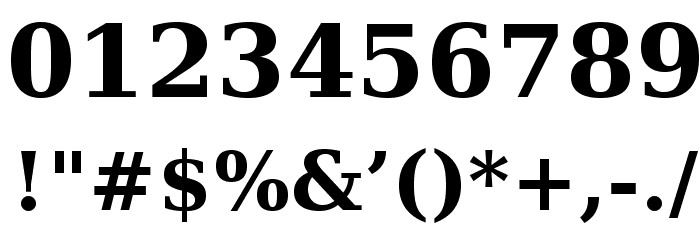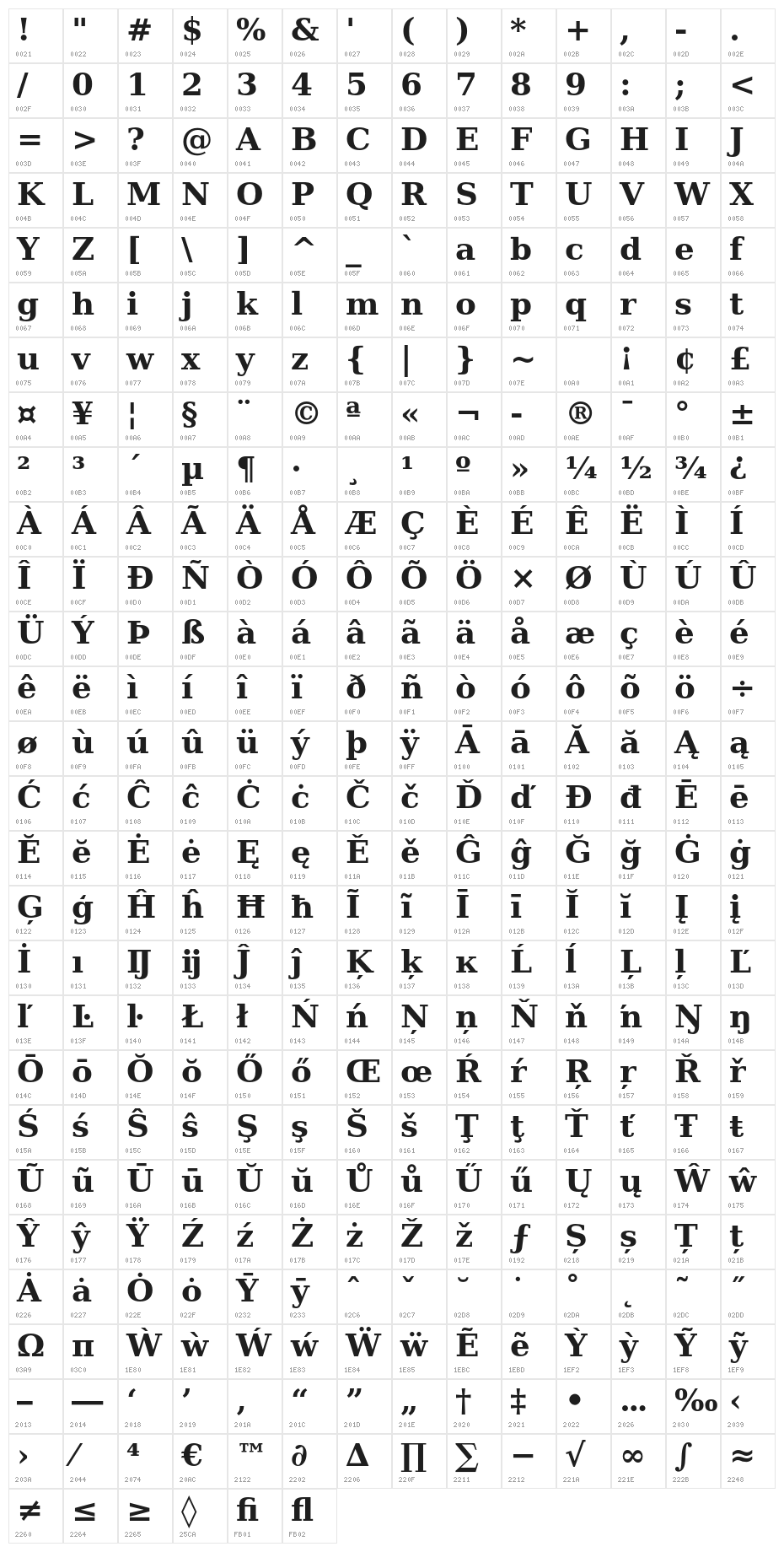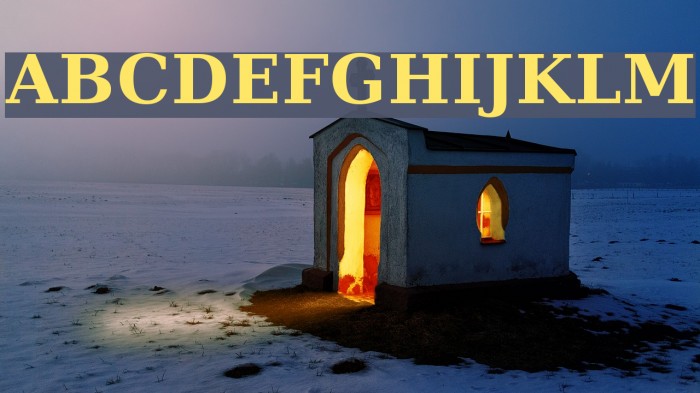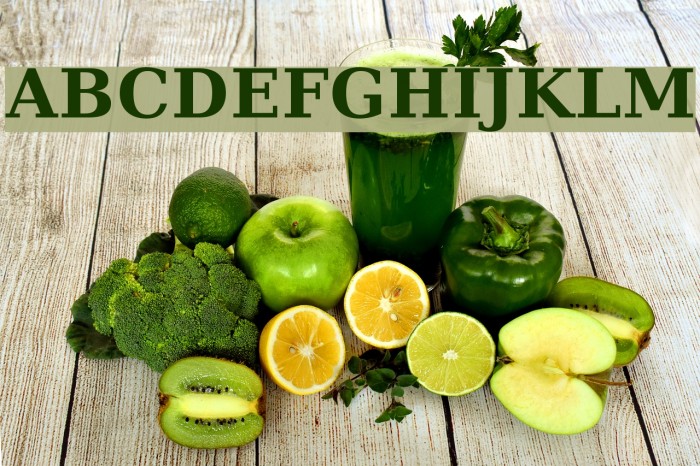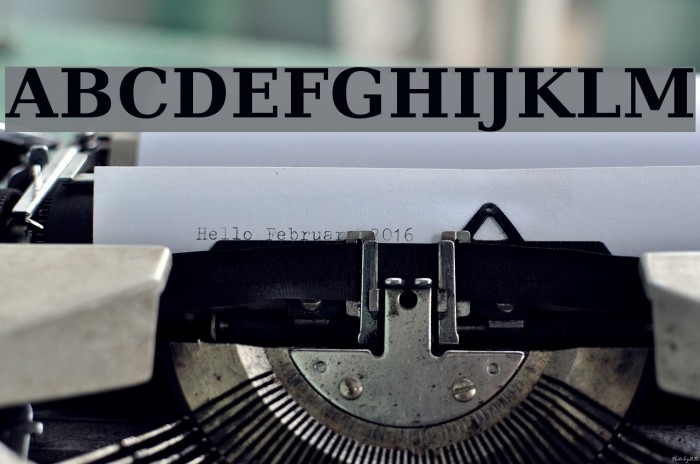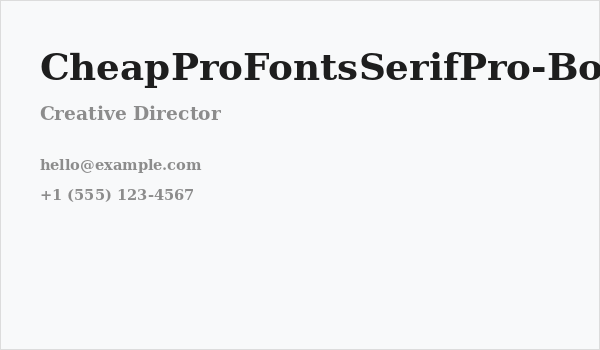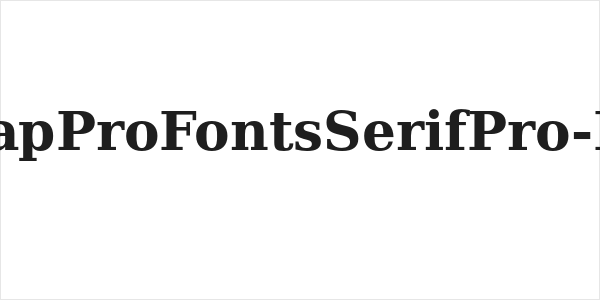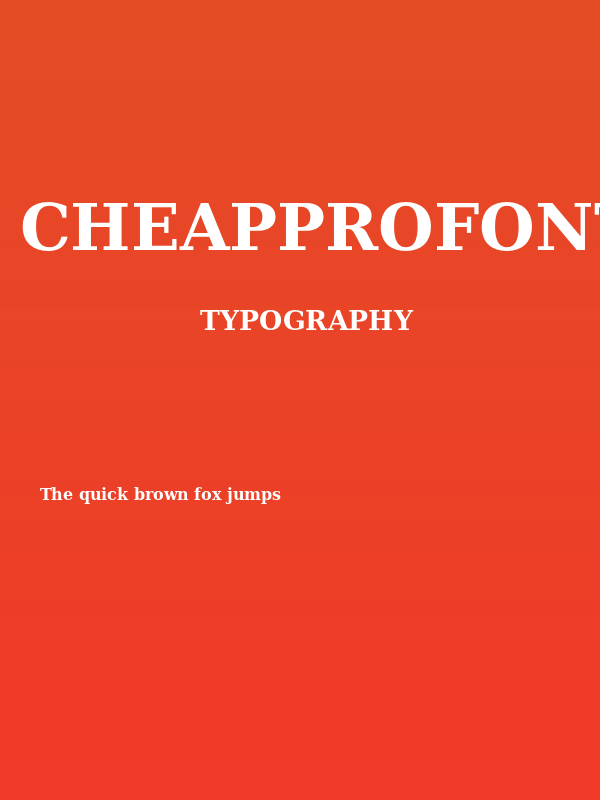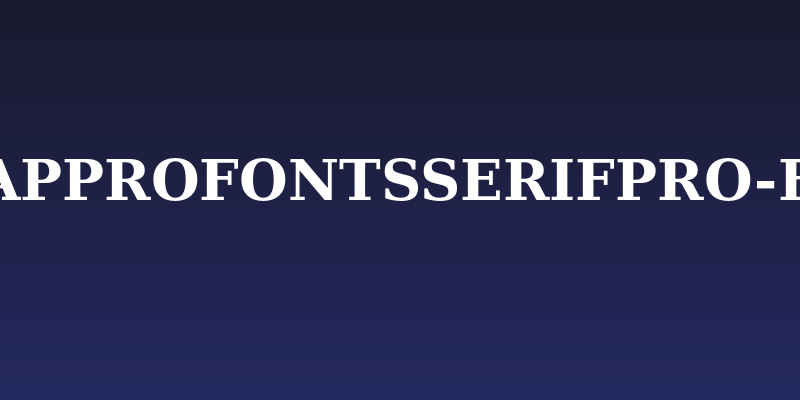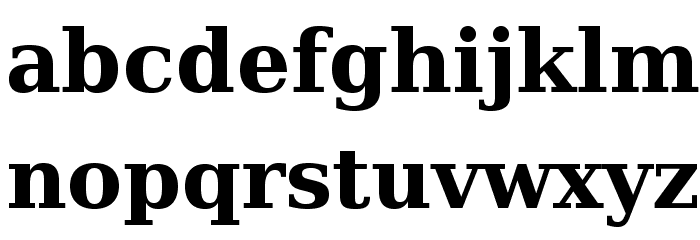
CheapProFontsSerifPro-Bold Font
CheapProFontsSerifPro-Bold Description
This typeface exhibits a classic serif style with bold, strong strokes that provide a sense of authority and tradition. The uppercase letters are well-defined with prominent serifs, while the lowercase letters maintain a consistent weight, offering a harmonious balance. The numerals are clear and robust, ensuring readability. Special characters are crafted with precision, maintaining the overall aesthetic. The font's boldness and clarity make it suitable for impactful headlines and titles, while its traditional serif elements lend it a timeless quality.
| Proposed Projects | Ideal for editorial design, book covers, formal invitations, and branding that requires a traditional yet impactful look. |